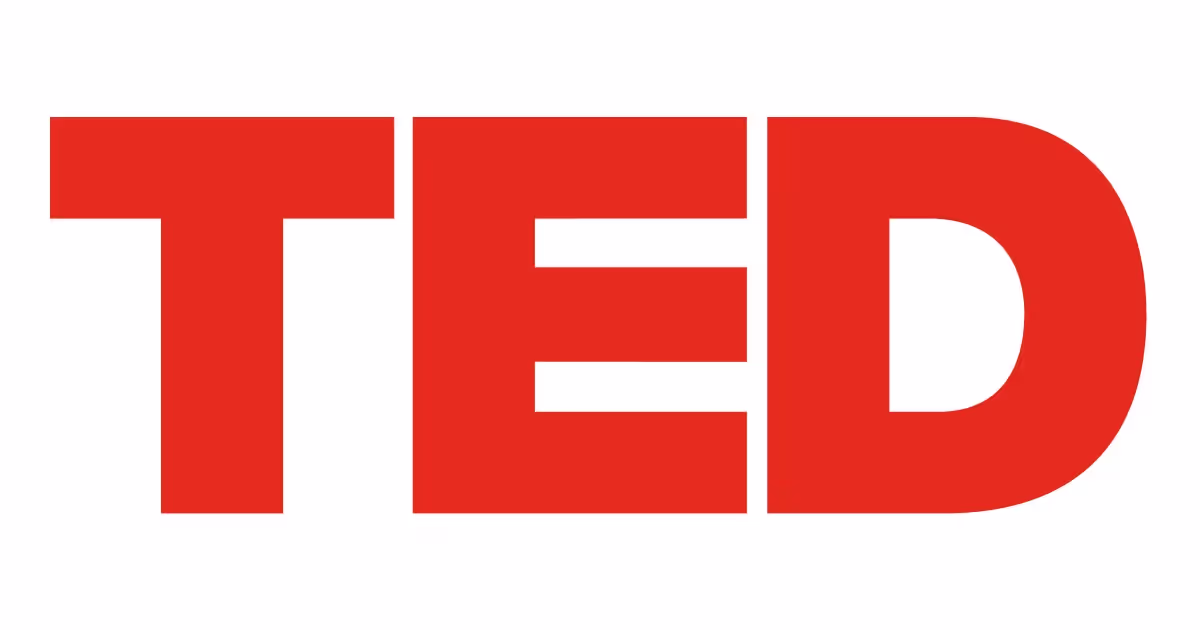
TED
Helvetica®
The Closest FontThe closest font you can get for the "TED" logo is this font
The TED Talks logo font is Helvetica Neue. TED Conferences LLC is an American media organization known for sharing talks online under the slogan “ideas worth spreading.” Founded by Richard Saul Wurman in 1984 and held annually since 1990, TED has become a global platform for innovation, science, business, and culture. The TED Talks logo font, Helvetica Neue, is a bold neo grotesque sans serif typeface with clean lines and strong legibility. The simple, compact letterforms create a modern and authoritative visual identity that supports clarity and impact.